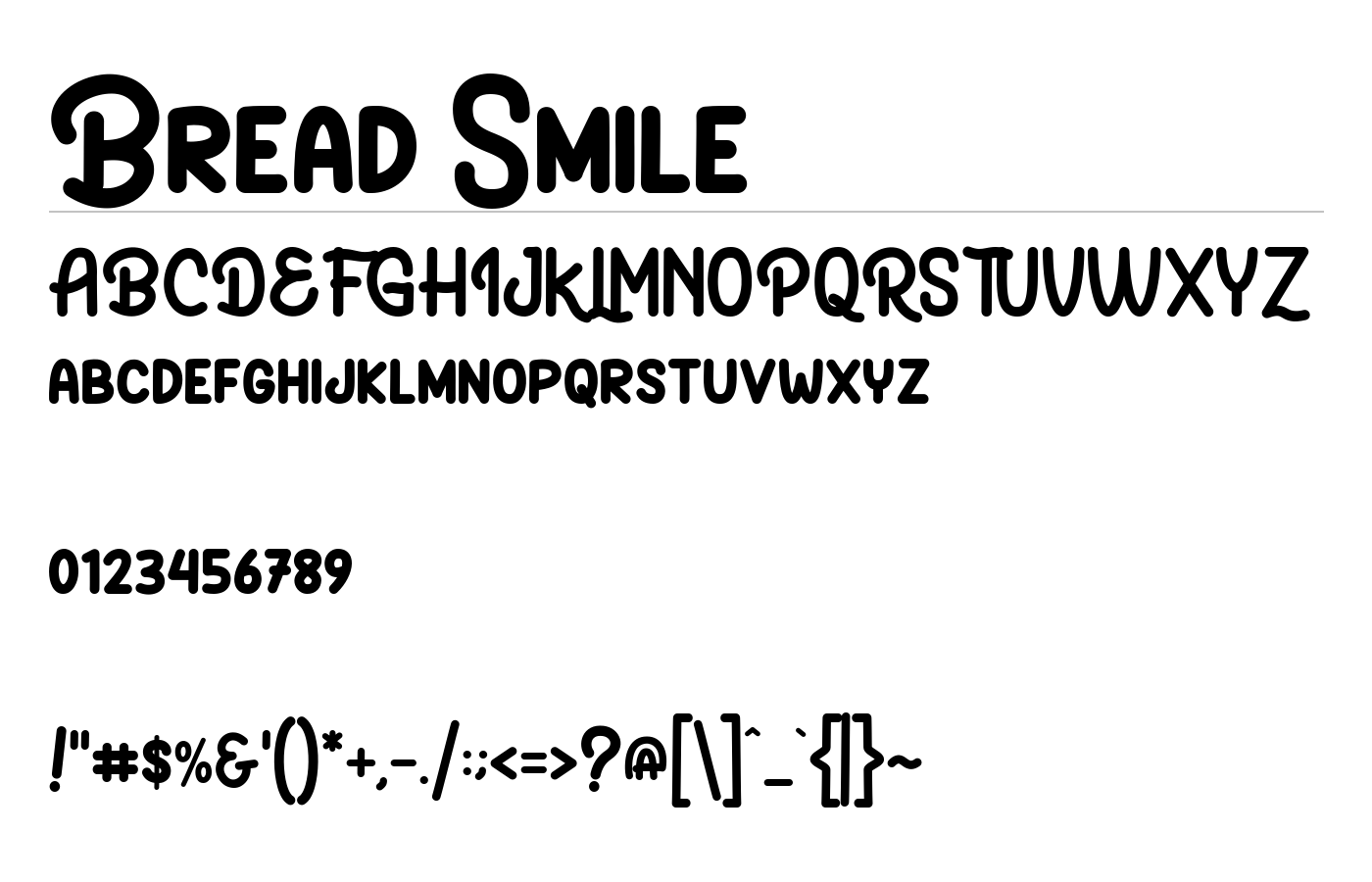
Bread Smile is a playful and rounded sans serif font with both lively uppercase and lowercase styles that blend casual charm with clear readability. Its smooth, thick strokes and modest contrast give it a friendly and approachable feel, making it perfect for fun logos, children’s products, and informal headlines. This font brings a warm, cheerful personality to designs that need to feel inviting and lighthearted.
Bread Smile Font
About Bread Smile Font